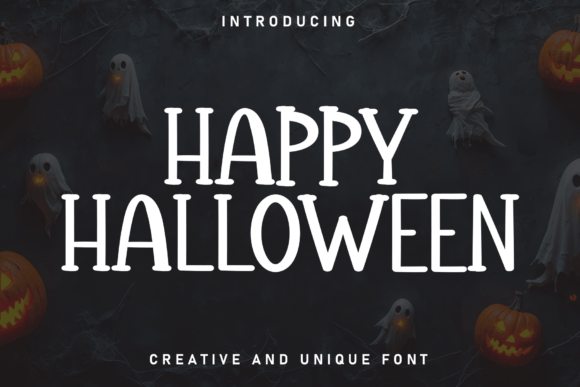
Happy Halloween Font: The Perfect Addition to Your Design
As the spookiest time of the year approaches, designers and creatives are on the lookout for the perfect font to add a touch of Halloween magic to their projects. Look no further than the Happy Halloween font, a casual and neat display font that combines simplicity with a friendly, approachable vibe. In this article, we’ll dive into the features and benefits of this fantastic font, and explore how it can elevate your designs to the next level.
What is Happy Halloween Font?
Happy Halloween is a modern display font that boasts clean lines, balanced letterforms, and subtle rounded edges. This unique combination gives the font a polished finish that’s perfect for a wide range of design applications. Whether you’re working on branding, headlines, packaging, or digital content, Happy Halloween font is the ideal choice to add a warm and inviting touch to your project.
Key Features of Happy Halloween Font
- Clean Lines: The font features clean lines that give it a crisp, modern look that’s perfect for designs that require a touch of sophistication.
- Balanced Letterforms: The letterforms are carefully crafted to ensure balance and harmony, making the font easy to read and visually appealing.
- Subtle Rounded Edges: The subtle rounded edges add a touch of warmth and friendliness to the font, making it perfect for designs that require a approachable vibe.
- Polished Finish: The font has a polished finish that gives it a professional look, making it suitable for high-end designs and branding projects.
Benefits of Using Happy Halloween Font
So, why choose Happy Halloween font for your design project? Here are just a few benefits of using this fantastic font:
- Versatility: Happy Halloween font is incredibly versatile, making it suitable for a wide range of design applications, from branding and headlines to packaging and digital content.
- Clarity: The font’s clean lines and balanced letterforms ensure clarity and legibility, making it easy for your audience to read and understand your message.
- Charm: The font’s subtle rounded edges and polished finish give it a charming and inviting quality that’s sure to capture your audience’s attention.
- Ease of Use: Happy Halloween font is easy to use and can be easily integrated into your design project, saving you time and effort.
How to Use Happy Halloween Font in Your Design
Using Happy Halloween font in your design project is easy. Here are a few tips to get you started:
- Branding: Use Happy Halloween font to create a unique and memorable brand identity that reflects your company’s values and personality.
- Headlines: Use the font to create eye-catching headlines that grab your audience’s attention and draw them in.
- Packaging: Use Happy Halloween font to add a touch of personality to your packaging design and make your product stand out on store shelves.
- Digital Content: Use the font to create engaging and visually appealing digital content, such as social media graphics, blog posts, and email newsletters.
Tips for Pairing Happy Halloween Font with Other Fonts
Pairing Happy Halloween font with other fonts can add depth and interest to your design. Here are a few tips for pairing this fantastic font with other fonts:
- Contrast: Pair Happy Halloween font with a font that has a contrasting style, such as a bold or italic font, to create visual interest.
- Complementary Fonts: Pair the font with a complementary font that has a similar style or feel, such as a modern sans-serif font.
- Experiment: Don’t be afraid to experiment with different font pairings to find the perfect combination for your design.
In conclusion, Happy Halloween font is a fantastic addition to any design project. Its unique combination of clean lines, balanced letterforms, and subtle rounded edges makes it perfect for a wide range of design applications. With its versatility, clarity, and charm, this font is sure to elevate your designs to the next level. So why wait? Download Happy Halloween font today and add a touch of Halloween magic to your design project.
- What is Happy Halloween font? Happy Halloween font is a casual and neat display font that combines simplicity with a friendly, approachable vibe.
- What are the key features of Happy Halloween font? The font features clean lines, balanced letterforms, and subtle rounded edges, making it perfect for a wide range of design applications.
- How do I use Happy Halloween font in my design? You can use Happy Halloween font in a variety of design applications, including branding, headlines, packaging, and digital content.